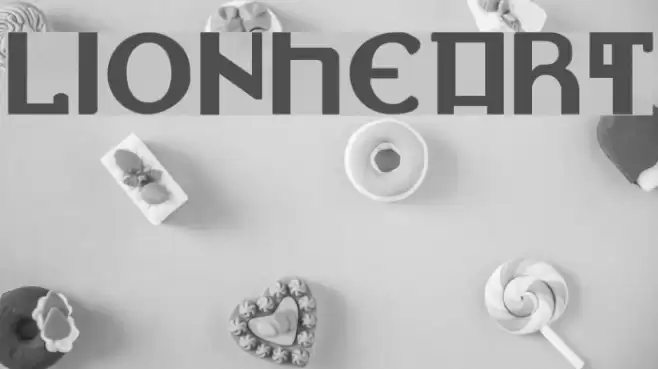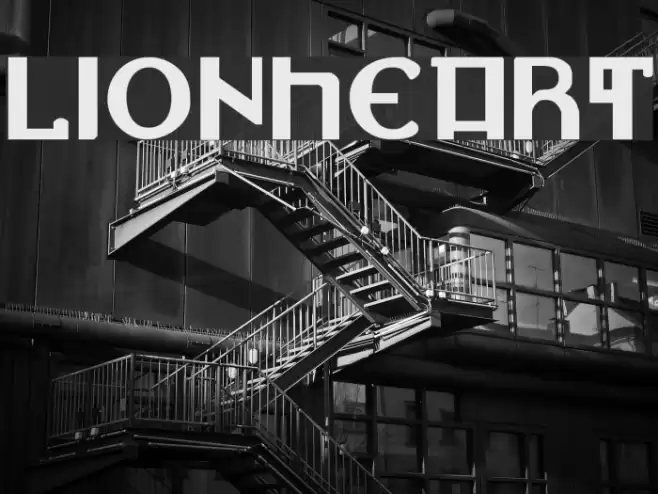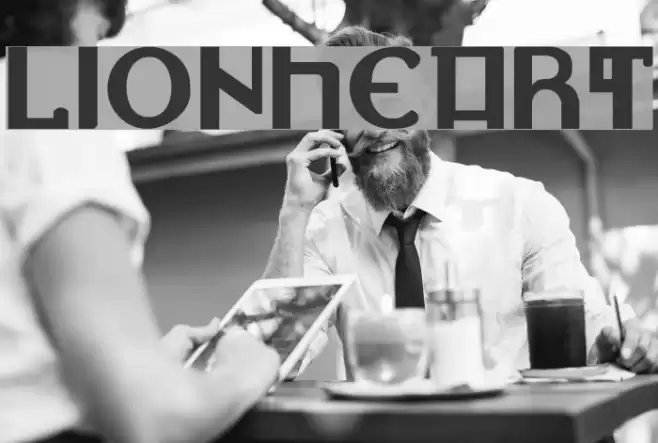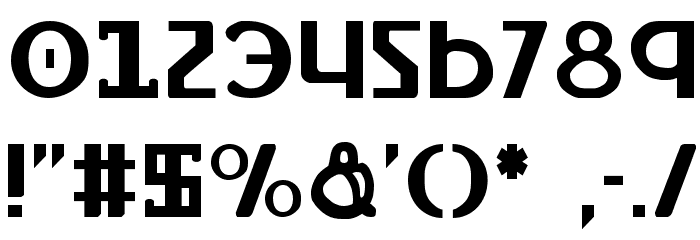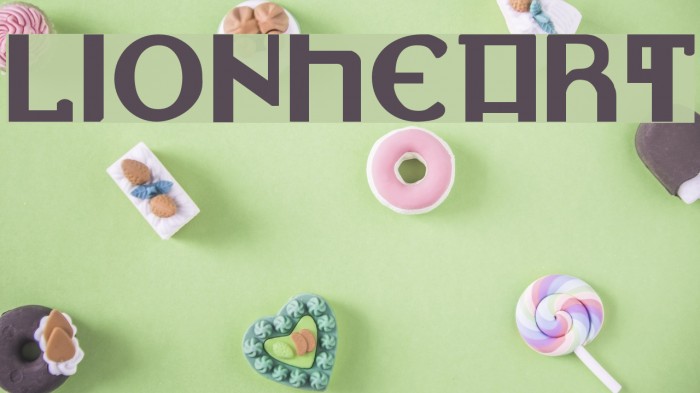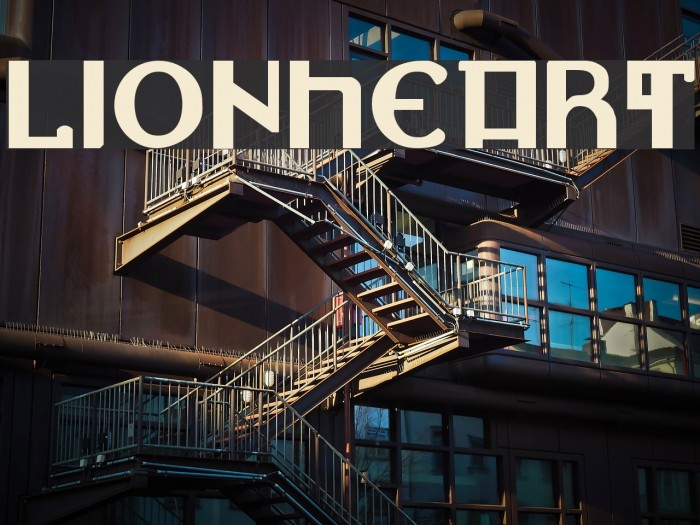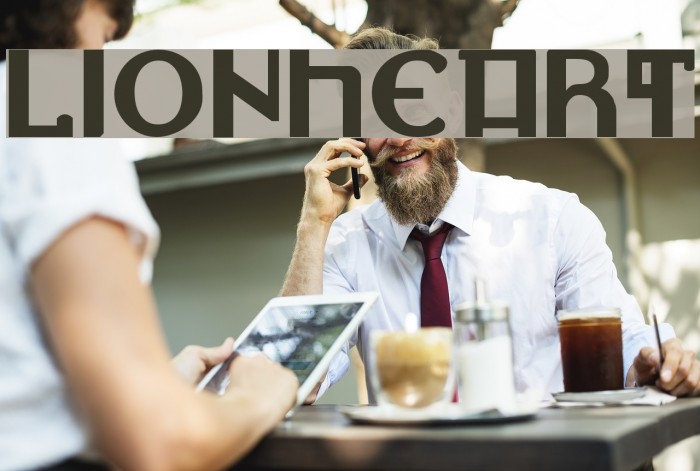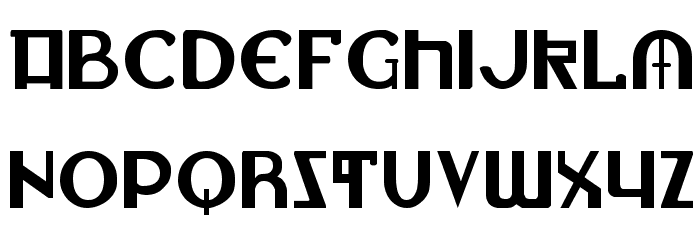
Lionheart Font
Lionheart Description
This font features a bold and geometric design with a unique, futuristic aesthetic. The characters are crafted with sharp angles and distinct shapes, giving them a modern and edgy look. The uppercase letters are particularly striking, with some characters incorporating unexpected cuts and lines that add to the font's dynamic appearance. The numbers and special characters maintain this bold style, ensuring consistency across all glyphs. The overall design is both eye-catching and versatile, suitable for a variety of creative applications.
A bold, geometric font with a futuristic and edgy design from Old fashioned fonts.
- Proposed Projects: Ideal for sci-fi themed projects, modern branding, posters, and digital artwork.